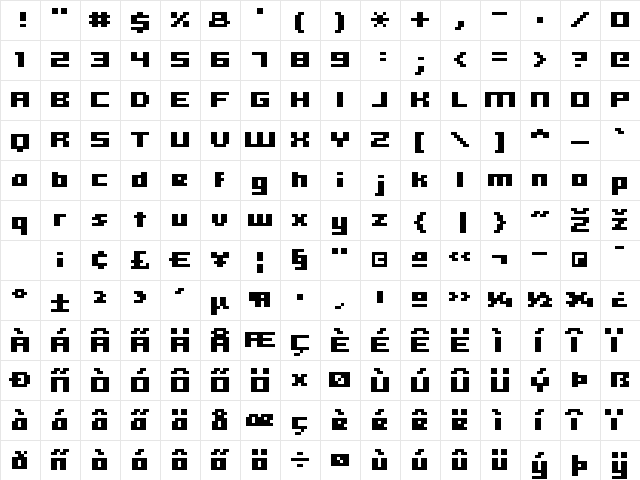
hooge 05_63 Regular
| Designer | Craig Kroeger |
hooge 05_63 offers clean, dependable letterforms without strong stylistic allegiance, making it a practical choice for designers who need flexibility.
Pro Tip: Use hooge 05_63 in both headline and body roles to test its range before committing to a single application.